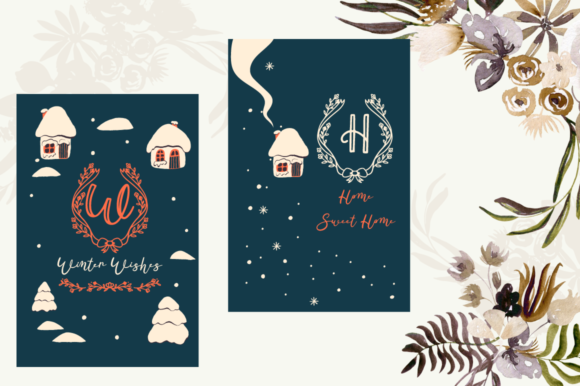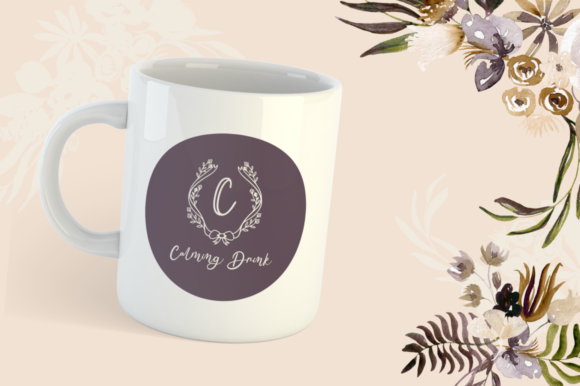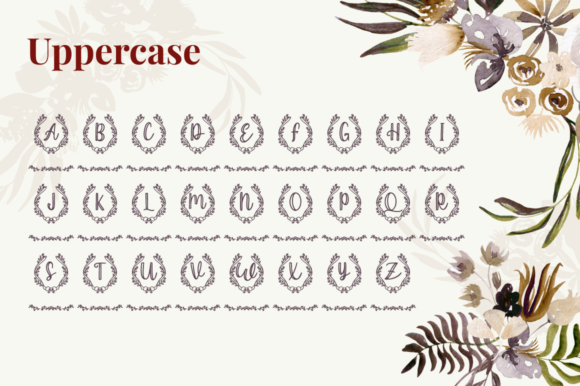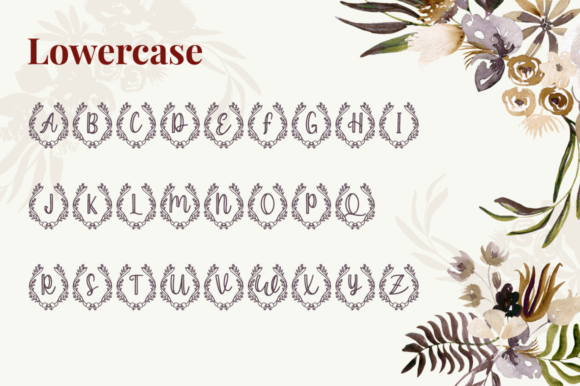
Introducing Elinda Monogram Font: The Perfect Addition to Your Romantic Designs
Are you a designer, crafter, or DIY enthusiast looking for a unique and romantic font to add a touch of elegance to your projects? Look no further than Elinda Monogram Font! This dainty and decorative font is perfect for creating beautiful love letters, wedding invitations, and other design ideas that require a personal and sentimental touch.
What Makes Elinda Monogram Font So Special?
Elinda Monogram Font is a one-of-a-kind decorative font that exudes romance and sophistication. Its intricate and delicate design makes it perfect for adding a touch of whimsy and charm to any project. Whether you’re creating a wedding invitation, a love letter, or a custom gift tag, Elinda Monogram Font is sure to impress.
One of the standout features of Elinda Monogram Font is its versatility. It can be used in a variety of design applications, from digital projects to print materials. The font is highly legible, making it easy to read and understand, even at small sizes.
How to Use Elinda Monogram Font in Your Designs
Elinda Monogram Font is incredibly easy to use, even for those who are new to design. Here are a few ideas to get you started:
- Wedding Invitations: Add a touch of romance to your wedding invitations with Elinda Monogram Font. Use it to create beautiful monograms, headers, and footers that will set the tone for your special day.
- Love Letters: Make your love letters truly special with Elinda Monogram Font. Use it to add a personal touch to your correspondence and make your loved one feel extra special.
- Custom Gift Tags: Create beautiful custom gift tags with Elinda Monogram Font. Add a personal message or the recipient’s name to make the gift even more special.
- Digital Projects: Use Elinda Monogram Font in your digital projects, such as social media graphics, blog posts, and email newsletters. It’s a great way to add a touch of elegance and sophistication to your online designs.
Tips and Tricks for Getting the Most Out of Elinda Monogram Font
Here are a few tips and tricks to help you get the most out of Elinda Monogram Font:
- Experiment with Different Sizes: Elinda Monogram Font looks great at a variety of sizes. Experiment with different sizes to find the one that works best for your project.
- Pair it with Other Fonts: Elinda Monogram Font pairs well with other fonts, such as script fonts and serif fonts. Experiment with different font combinations to find the one that works best for your project.
- Use it in Combination with Images: Elinda Monogram Font looks great in combination with images, such as watercolor illustrations and floral patterns. Use it to add a personal touch to your designs.
Elinda Monogram Font is a beautiful and unique decorative font that’s perfect for designers, crafters, and DIY enthusiasts. Its romantic and lovely design makes it perfect for adding a touch of elegance to any project. Whether you’re creating a wedding invitation, a love letter, or a custom gift tag, Elinda Monogram Font is sure to impress. So why wait? Download Elinda Monogram Font today and start creating beautiful designs that will leave a lasting impression!
With its versatility, legibility, and romantic design, Elinda Monogram Font is a must-have for anyone looking to add a touch of sophistication to their designs. So go ahead, get creative, and see what amazing designs you can create with Elinda Monogram Font!